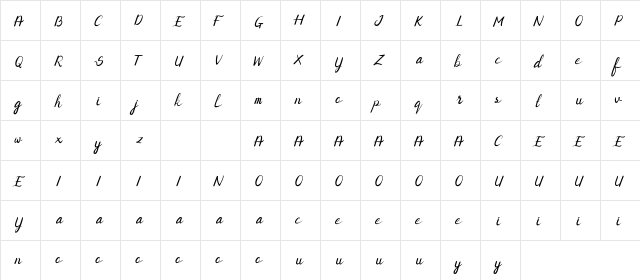
SHAIMAA DEMO Script Regular
| Foundry | edric studio |
| Designer | M Nouval - Aghnia |
Design Context for SHAIMAA DEMO Script Typeface
SHAIMAA DEMO Script flows with the natural rhythm of handwritten lettering, making it ideal for designs that call for warmth and personal expression.